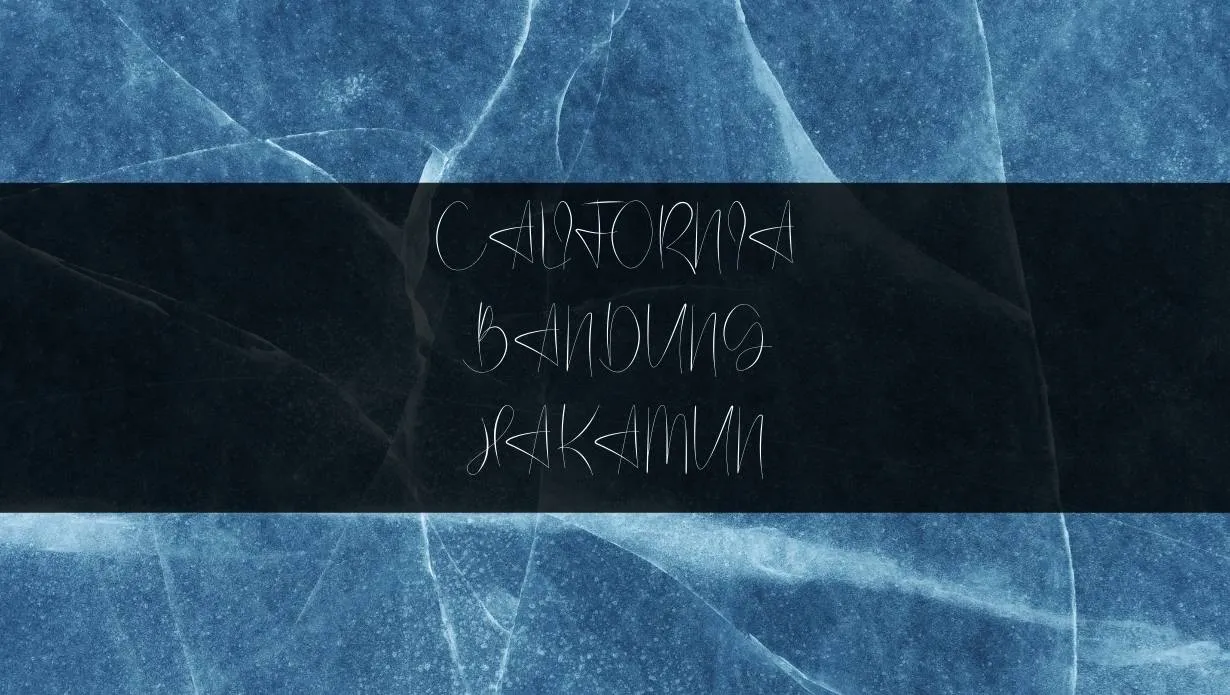
Belinda Font is a beautiful script font that was created by type designer Eric Osborn. This Font family includes 6 weights ranging from Thin to Thick, each with corresponding Italics. This typeface is extremely versatile that can be used for both body text and headlines.
Eric Osborn is a type designer from the United States. He has created many beautiful fonts such as Belinda, Bravura, and Brandon. This is not a google font but you also download its similar from the google store like Scriptina Font.
View of Belinda Font
Belinda Font Info
| Name | Belinda Font |
| Designer | Eric Osborn |